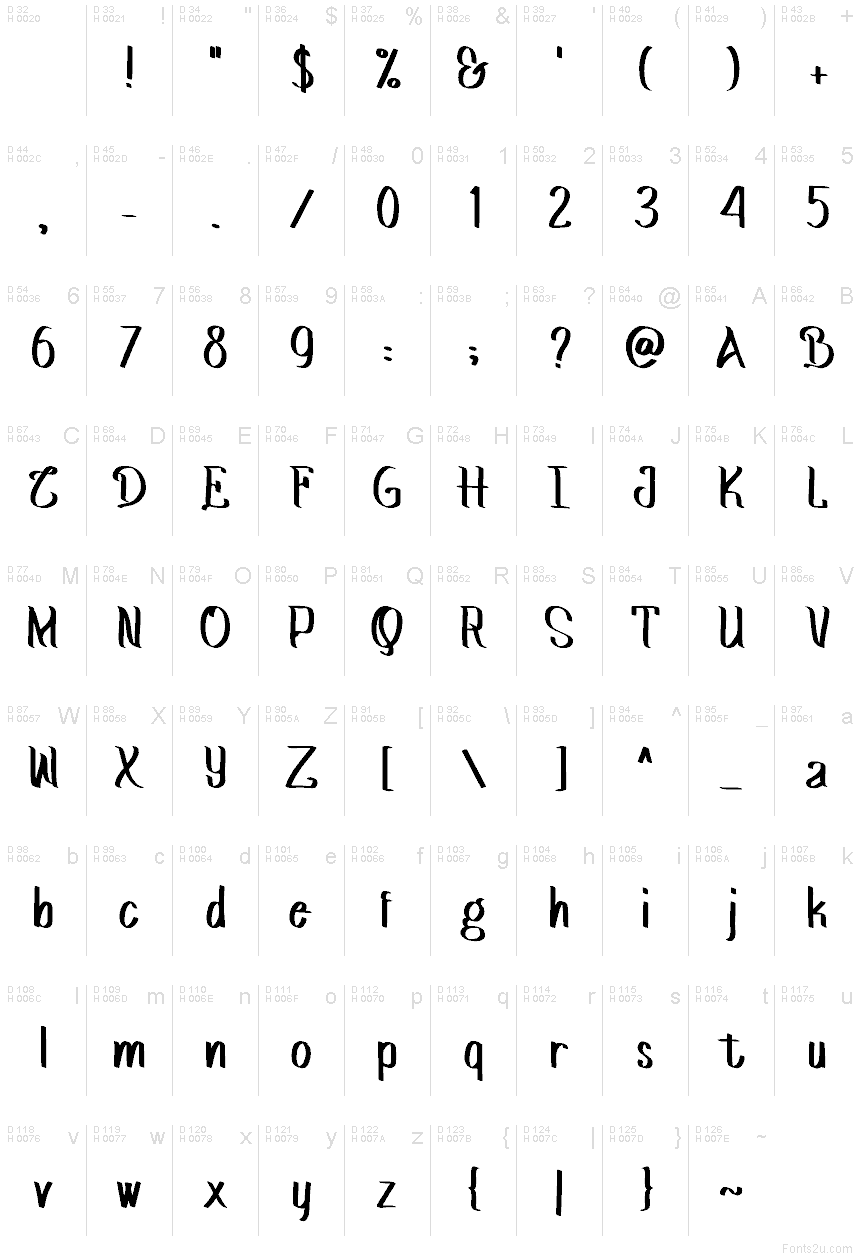
Sacristan
Sacristan font by Studio Hello Good is a free handwritten font with decorative influences and artistic flair. Its ornate letters offer that sought-after sophisticated ambiance that other typefaces can barely achieve while staying within historic boundaries. Each character enjoys its vintage appeal, presenting incomparable style and personality.
Sacristan’s clean flow makes it suitable for digial reading, perfect for newspaper websites, E-book covers, online magazines, blog pages, text- based logos, social media headers– the options are endless. Printed projects won’t be left behind thanks to this amazing font that works well on newspapers, book covers or paperback books as well!